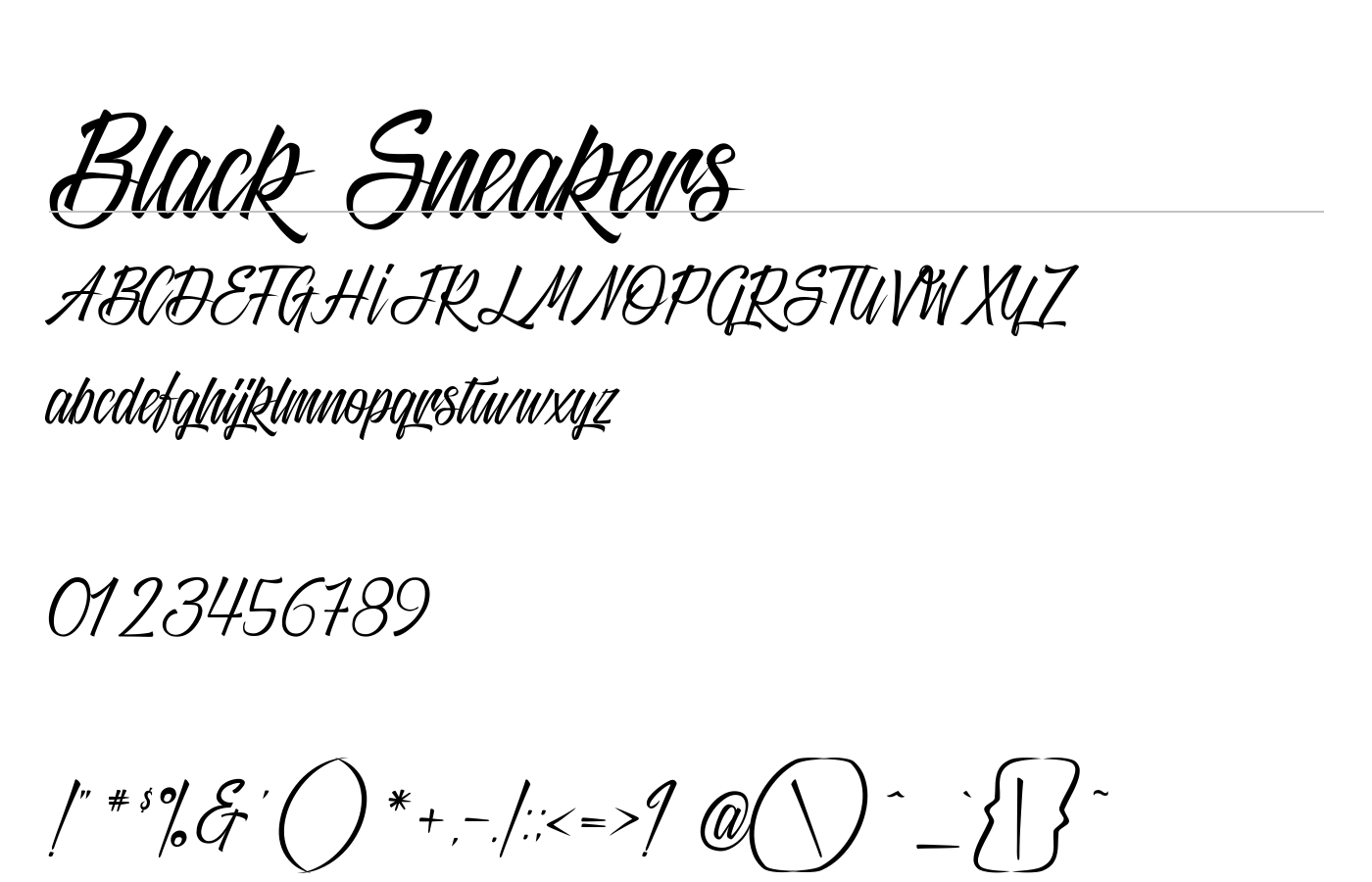
Black Sneakers Font is a lively and modern script typeface with an energetic, handwritten feel. Its slender, slightly slanted strokes and dynamic letterforms give it a stylish and informal character, making it ideal for creative branding, fashion, and casual editorial use where a personal, eye-catching touch is desired.
Black Sneakers Font
About Black Sneakers Font
| Font family | Black Sneakers Font |
| Designer | Cataleya Butcher |